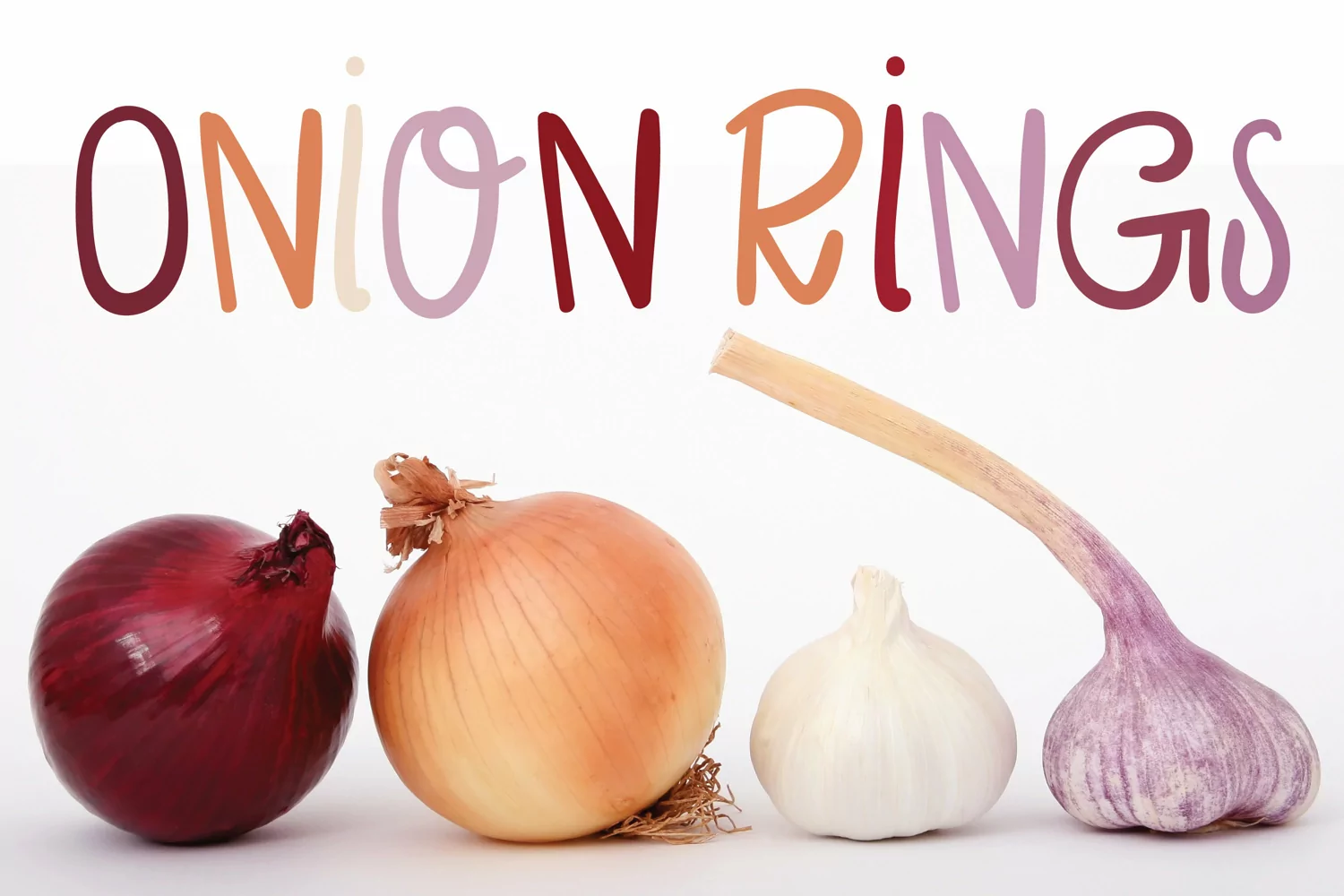
Christmas Shine
Presenting Cute hand drawn font that you will love for sure! Take a close look and see what you can make with this stunning little fonts containing letters and alphabets that is mostly needed. Let's see features!
- Hand Crafted 100%
- Upper and Lowercase
- Numbers also included with some basic keys